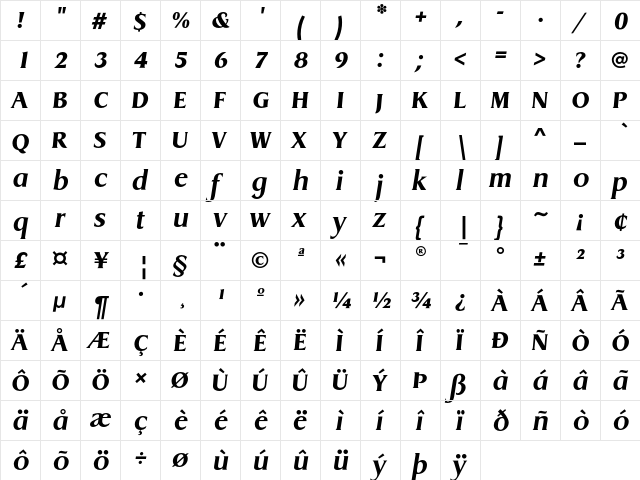
DragonEF BoldItalic
Design Context for DragonEF Typeface
DragonEF takes a measured approach to typography — its balanced proportions and neutral character make it a reliable workhorse for both digital and print work. The dynamic lean of this cut emphasises speed and emphasis in any layout. Its bold stroke weight gives it real presence on the page.
Pro Tip: Try DragonEF for annotation and caption copy alongside an upright companion — the contrast in angle creates a dynamic but ordered typographic system.